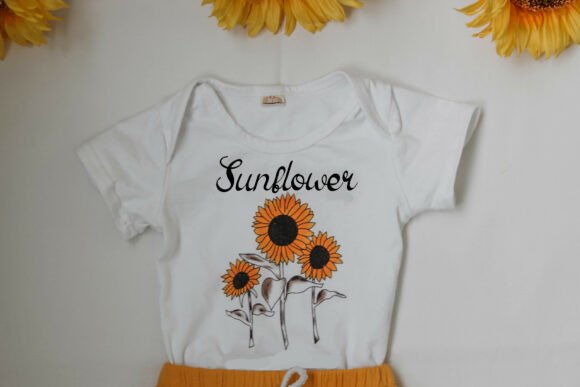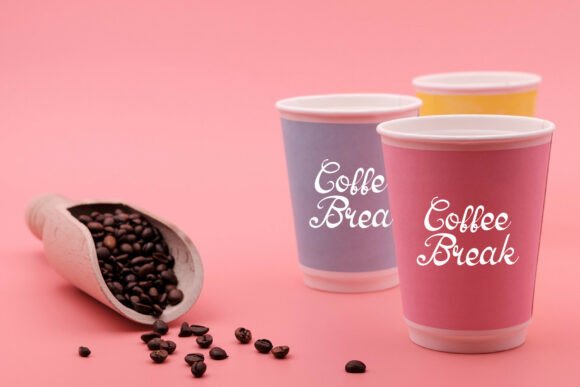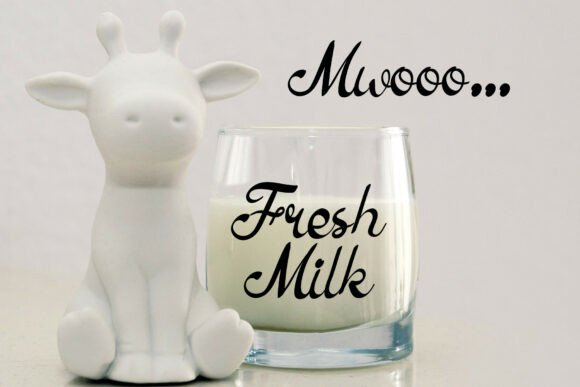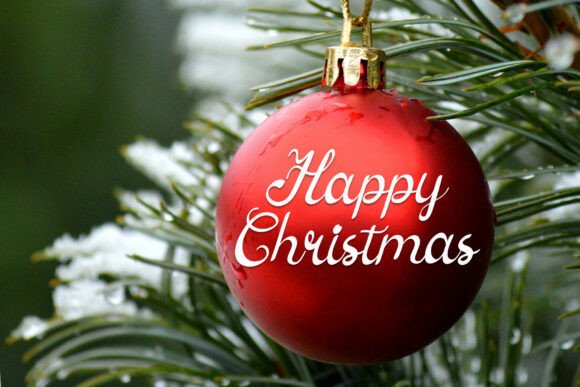
Halted Font: Elevate Your Designs with Elegance and Sophistication
In the world of typography, fonts play a crucial role in conveying the tone and personality of a design. For designers and crafters seeking a unique and elegant touch, Halted Font is an exceptional choice. This stunning font is perfect for creating breathtaking wedding invitations, greeting cards, billboards, logos, business cards, and more. In this article, we’ll dive into the features and benefits of Halted Font, and explore how it can elevate your designs to new heights.
A Handwritten Touch with a Natural, Hand-Made Feel
Halted Font boasts a distinctive, handwritten style that exudes elegance and sophistication. Its varied baseline creates a natural, hand-made touch that adds a layer of authenticity to any design. This font is perfect for designers who want to infuse their work with a personal, human touch. Whether you’re creating wedding invitations, greeting cards, or business cards, Halted Font is sure to make your designs stand out.
One of the most significant advantages of Halted Font is its versatility. This font can be used across a wide range of design applications, from print materials like business cards, brochures, and posters, to digital platforms like social media graphics and website headers. Its unique and elegant style ensures that your designs will be instantly recognizable and memorable.
Halted Font is PUA (Private Use Area) encoded, which means that you can access all glyphs and swashes with ease. This feature allows you to unlock the full potential of the font, experimenting with different combinations to create truly unique and spectacular designs. With PUA encoding, you can effortlessly navigate the font’s extensive character set, including alternates, ligatures, and swashes.
Halted Font is an ideal choice for designers and crafters who want to add a touch of elegance and sophistication to their work. Whether you’re a seasoned professional or just starting out, this font is easy to use and integrate into your designs. Its flexibility and versatility make it perfect for a wide range of projects, from delicate wedding invitations to bold billboards.
Key Features of Halted Font
- Unique and elegant handwritten style: Halted Font features a distinctive, hand-crafted design that adds a touch of sophistication to any project.
- Varied baseline for a natural, hand-made feel: The font’s varied baseline creates a sense of authenticity, making it perfect for designs that require a personal touch.
- PUA encoded for easy access: With PUA encoding, you can effortlessly access all glyphs and swashes, unlocking the font’s full potential.
- Perfect for a wide range of design applications: From wedding invitations to billboards, Halted Font is versatile enough to be used across various design projects.
Tips for Using Halted Font
- Experiment with different sizes and colors: Halted Font looks stunning in various sizes and colors, so don’t be afraid to try out different combinations.
- Pair it with complementary fonts: Combine Halted Font with other fonts to create visually appealing and harmonious designs.
- Use it for headlines and titles: The font’s elegant style makes it perfect for headlines and titles, adding a touch of sophistication to your designs.